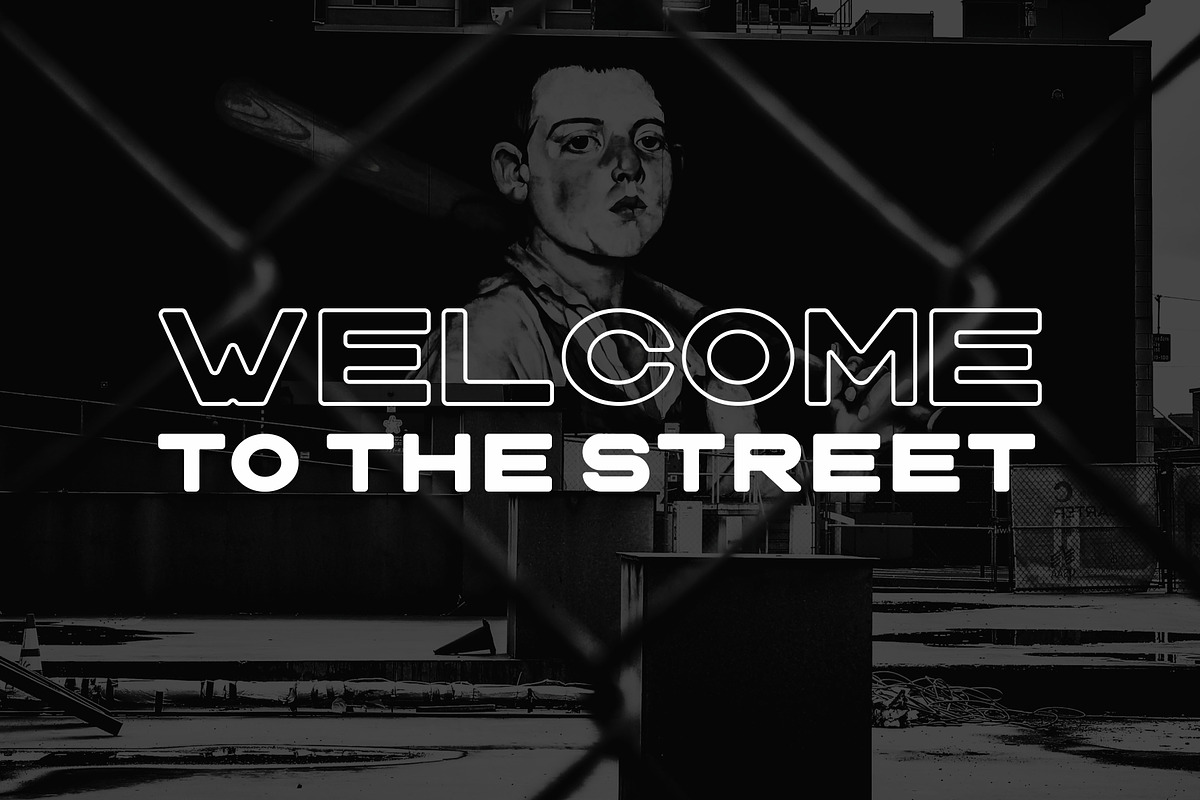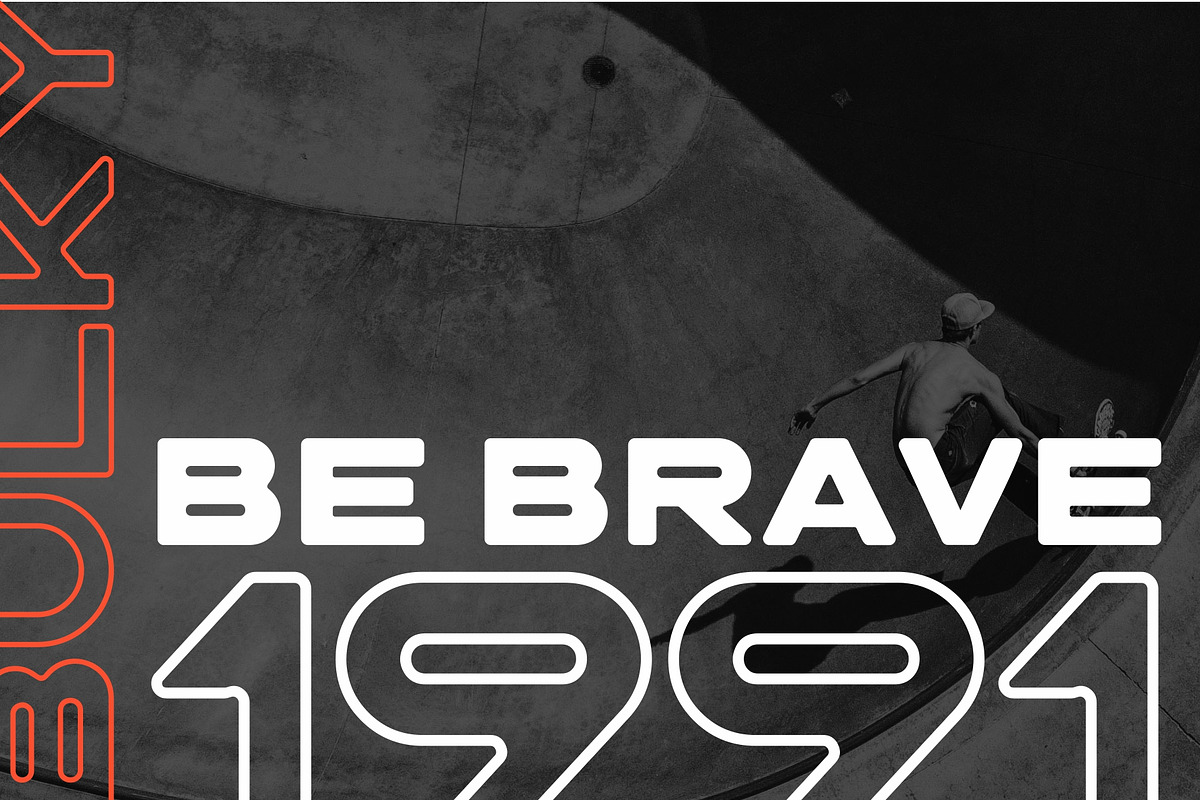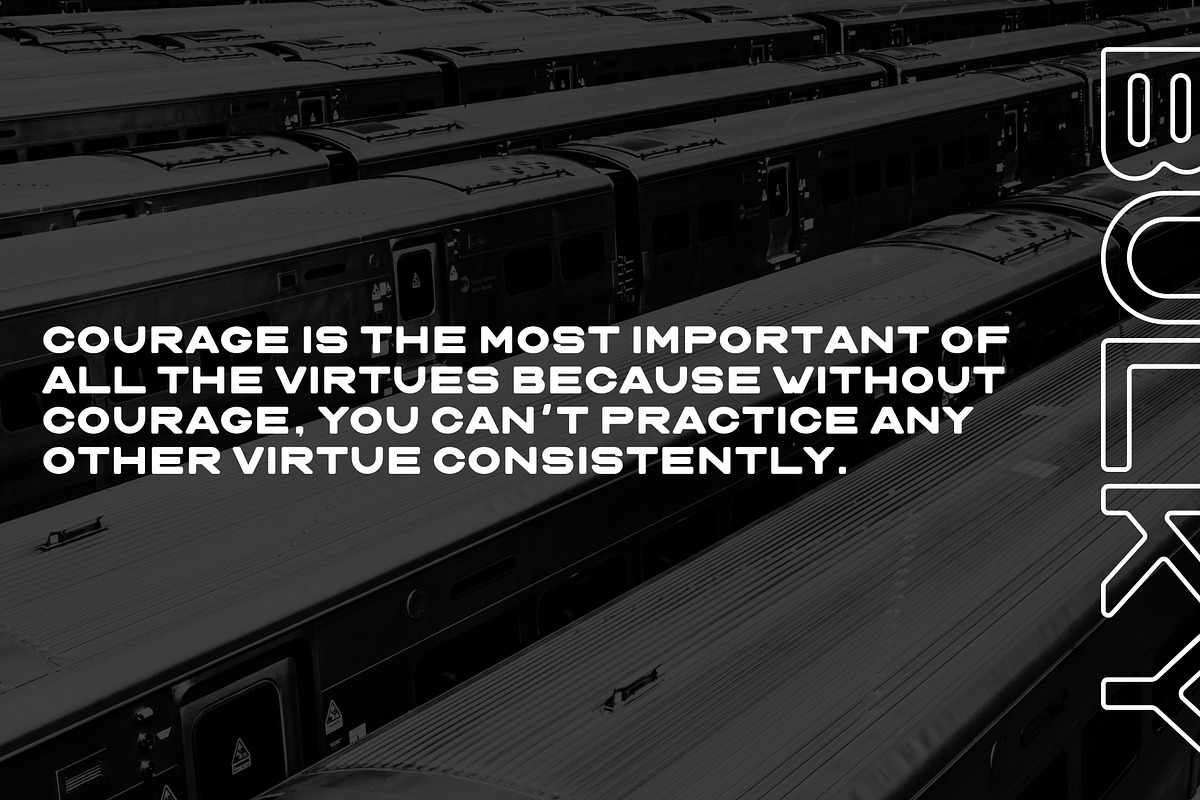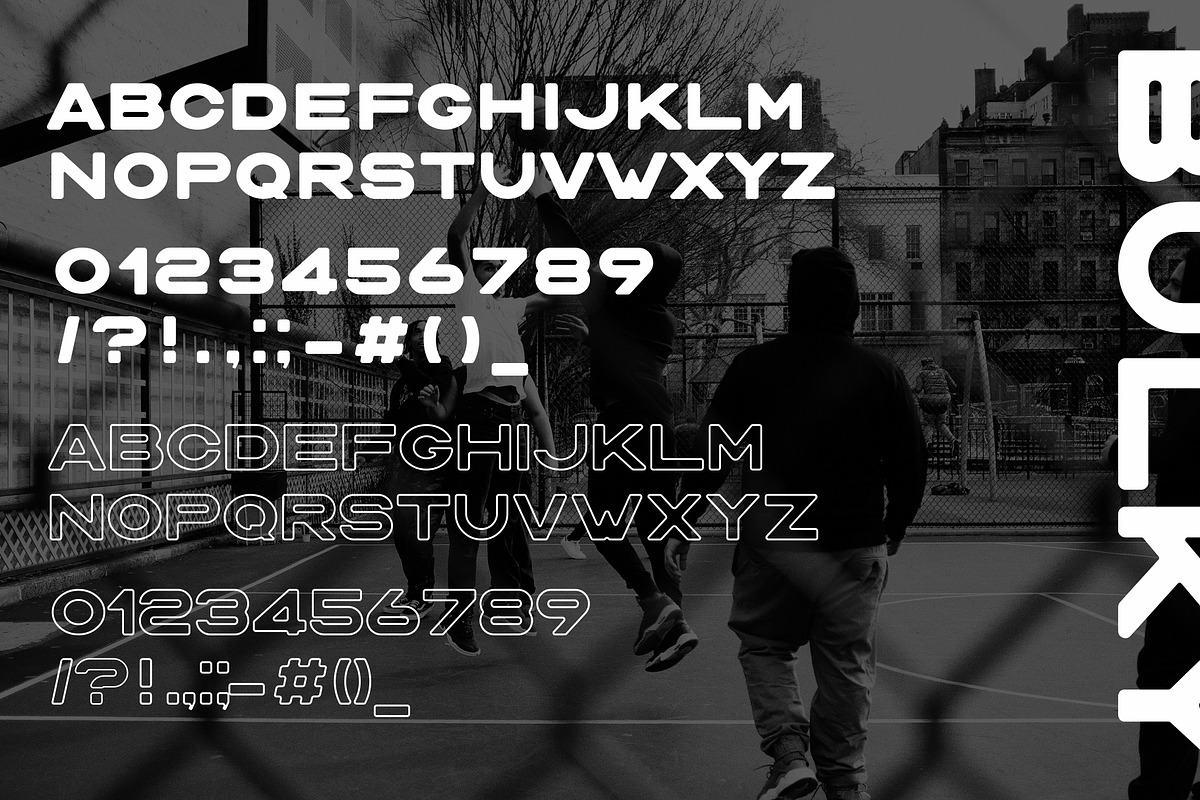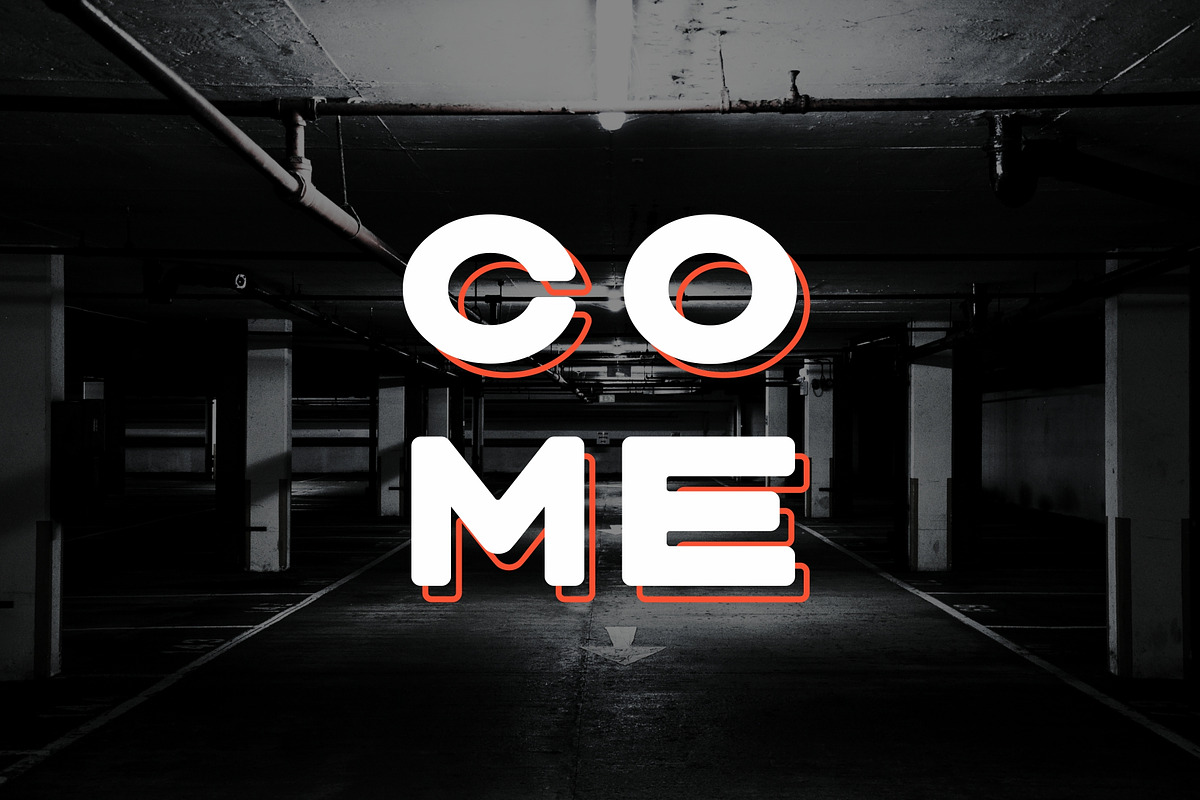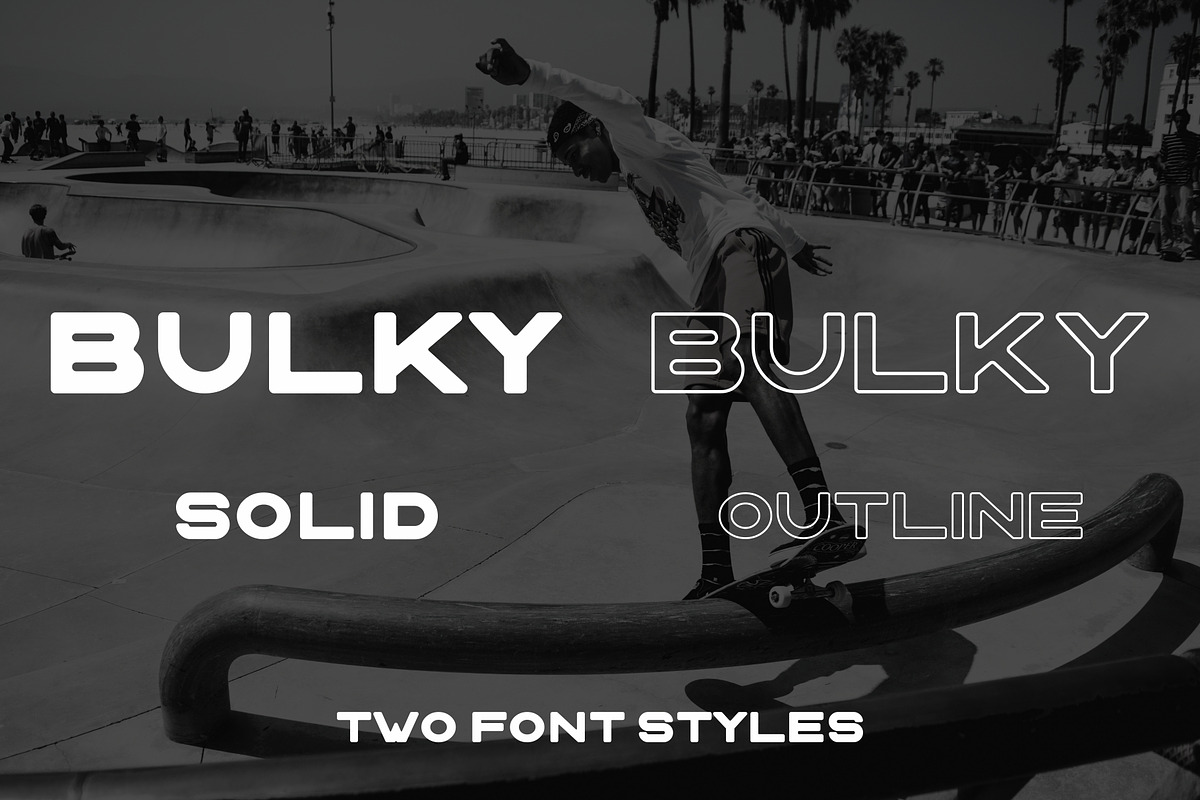
BULKY. Display typeface, 2 styles.
BULKY designed for great headers, typography compositions and some "urban style" in your design projects. Geometric Sans Serif with smooth corners. Looks gorgeous and stern.You can layered two font styles and create awesome header.
- Uppercase Letters
- Numbers + Punctuation
- Uppercase Letters
- Numbers + Punctuation
- BULKY Regular
- BULKY Bold